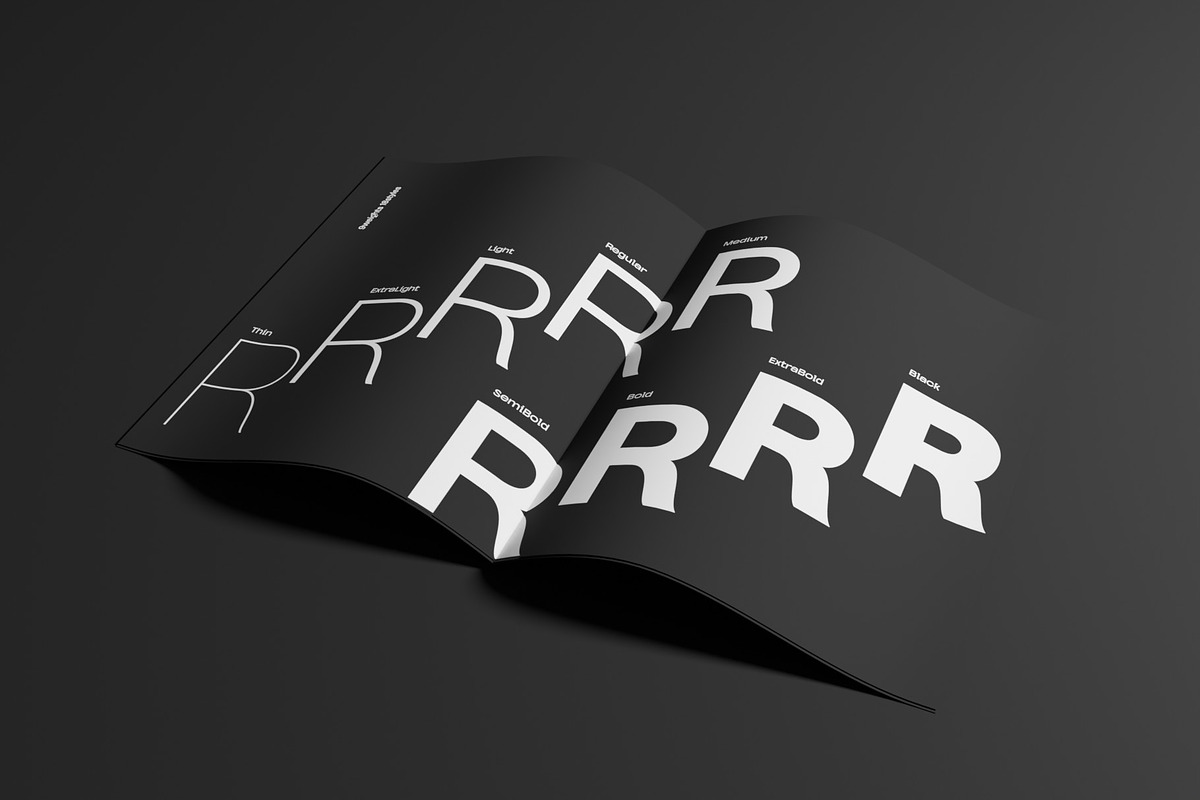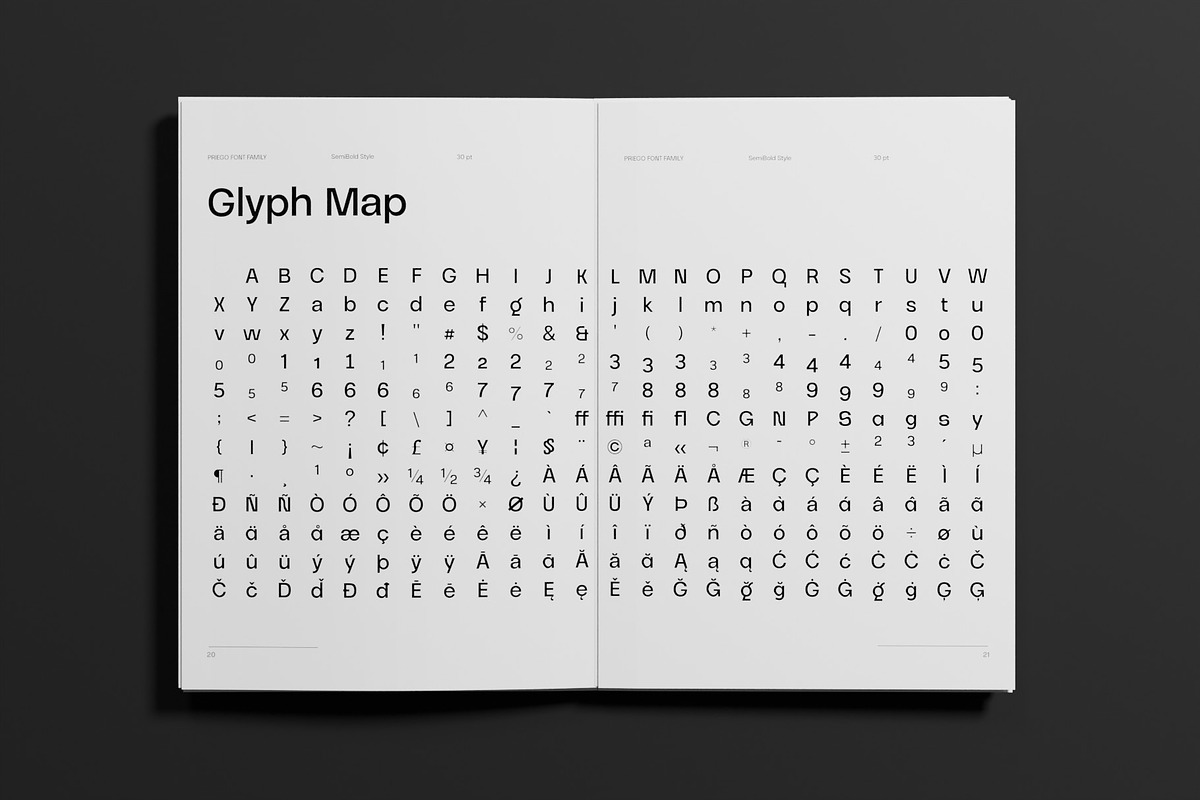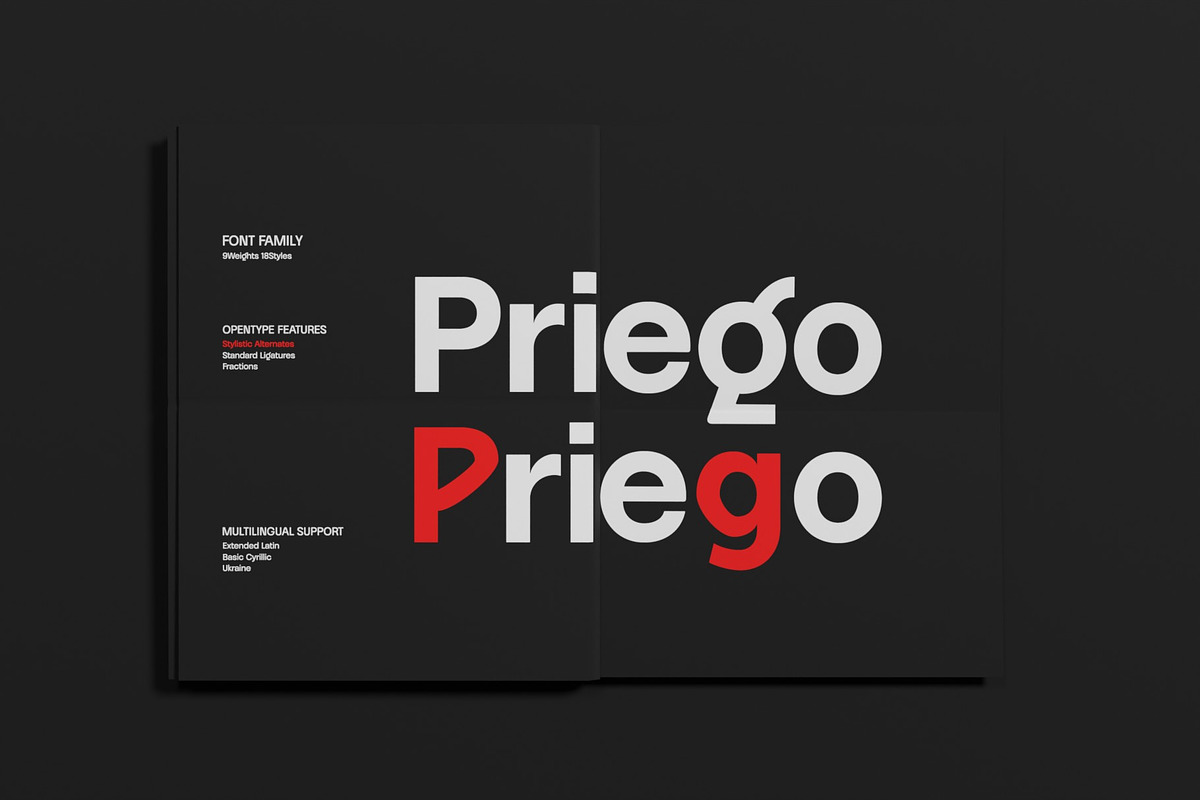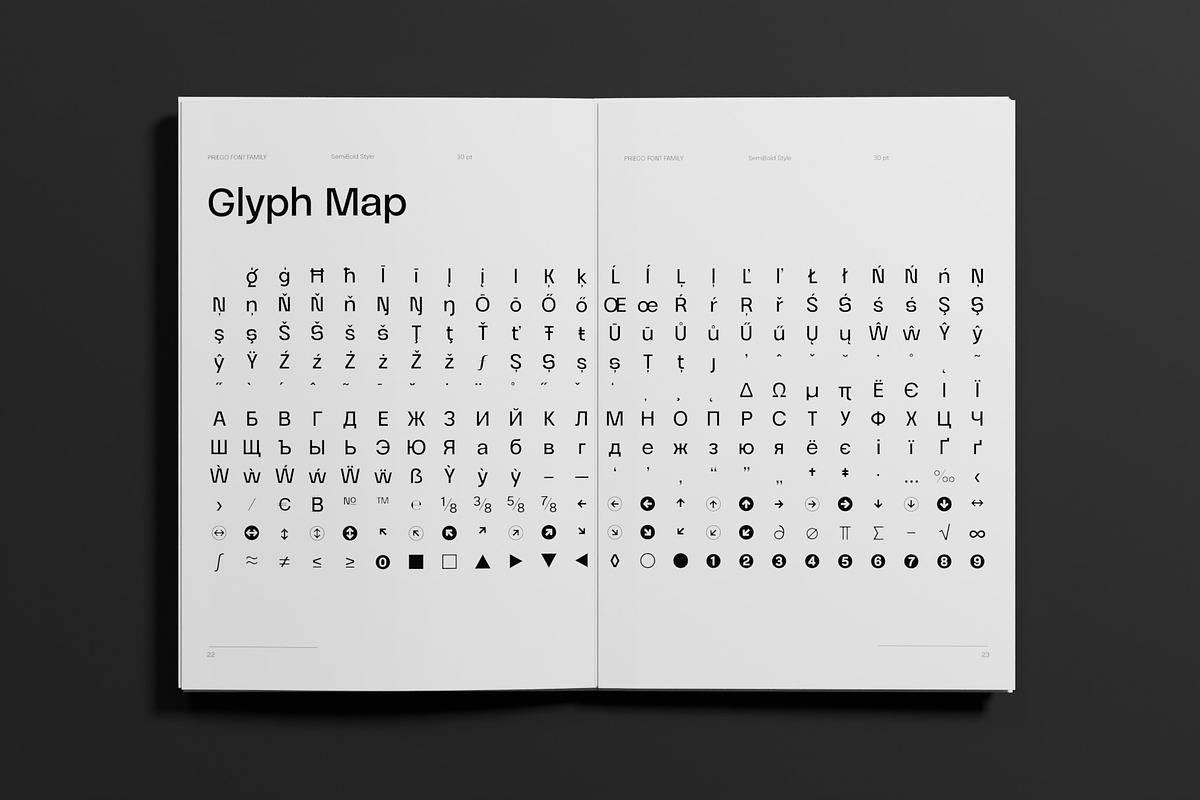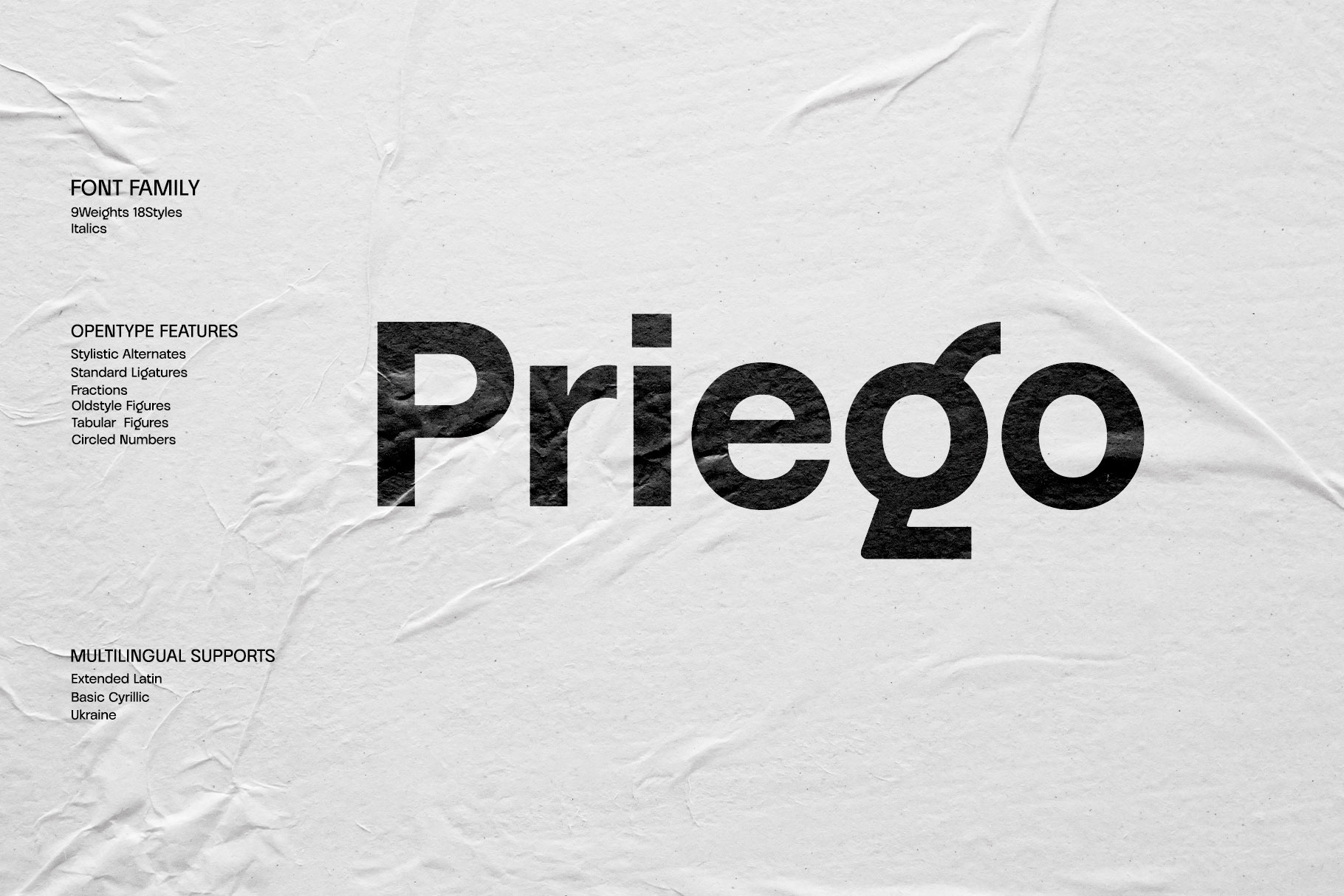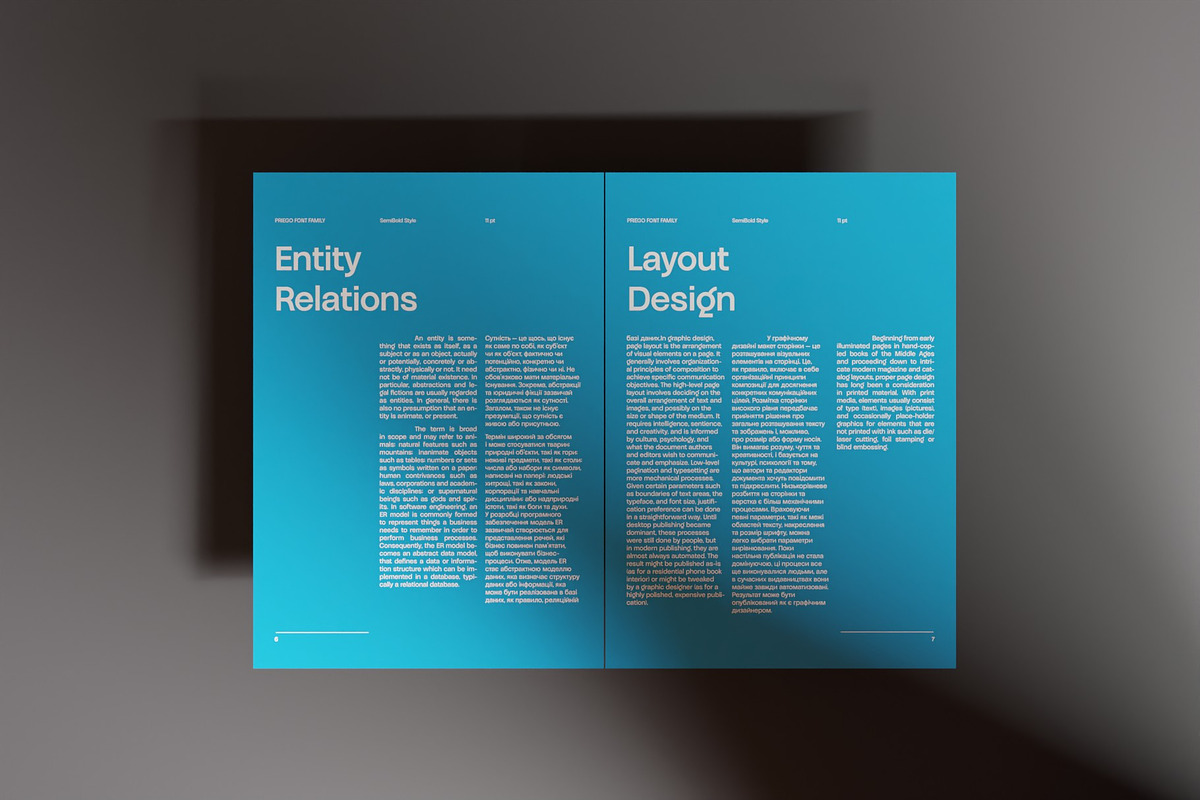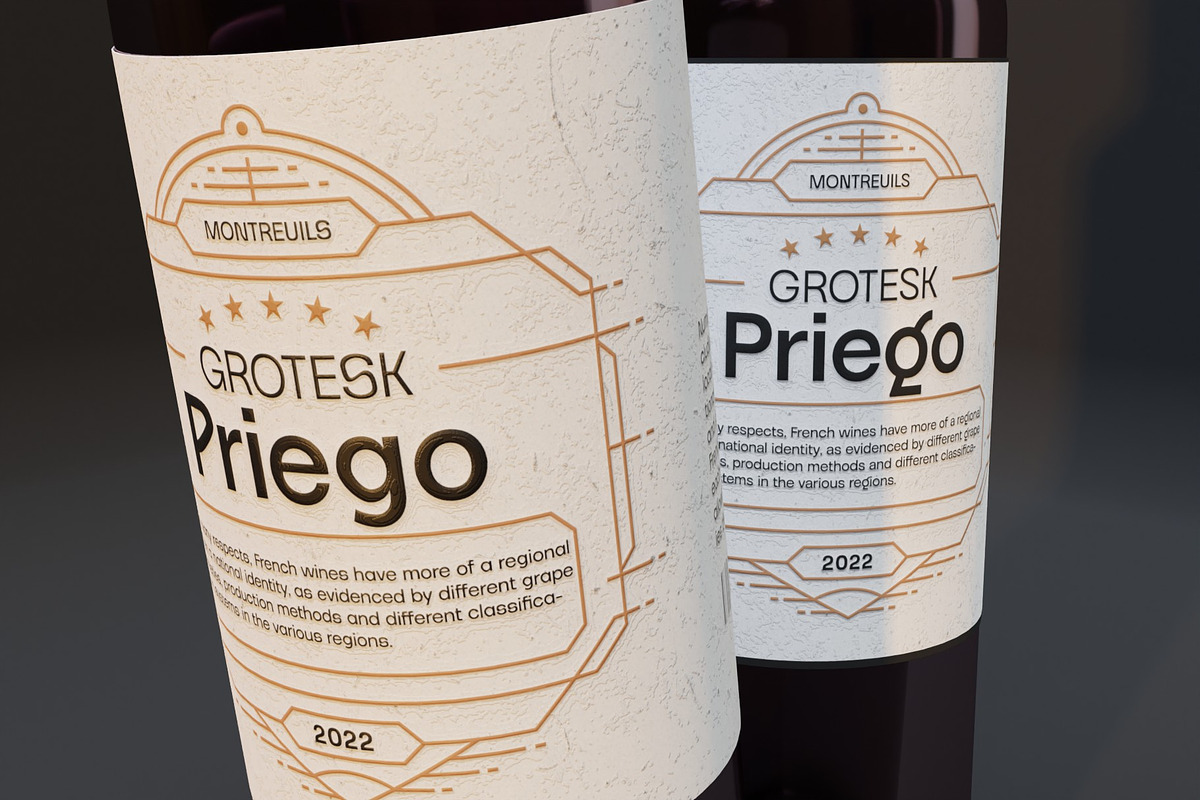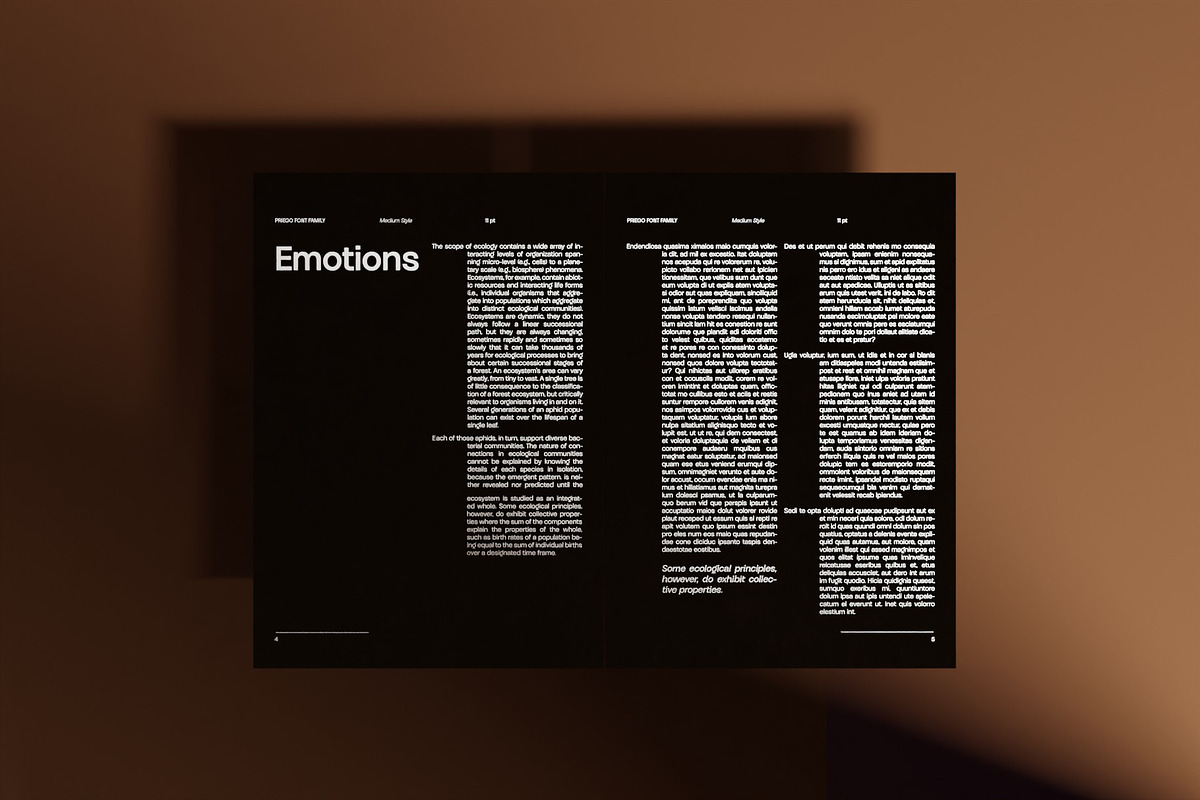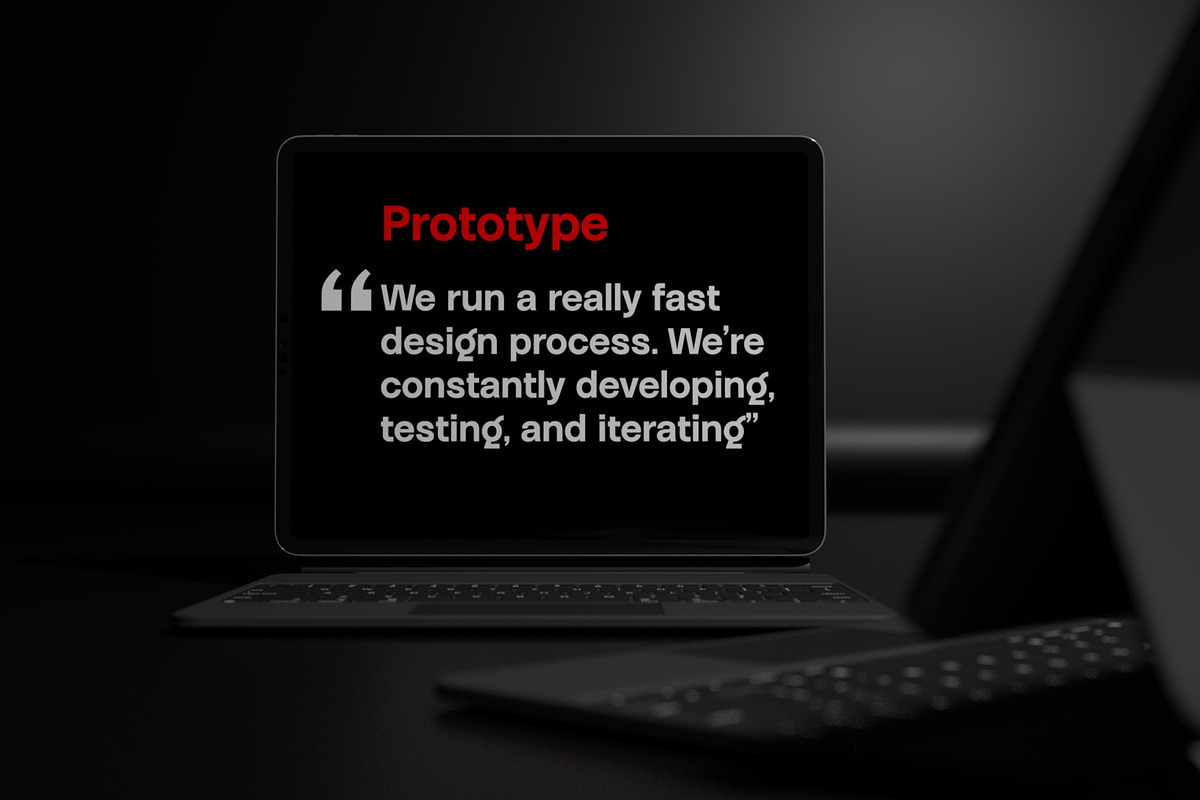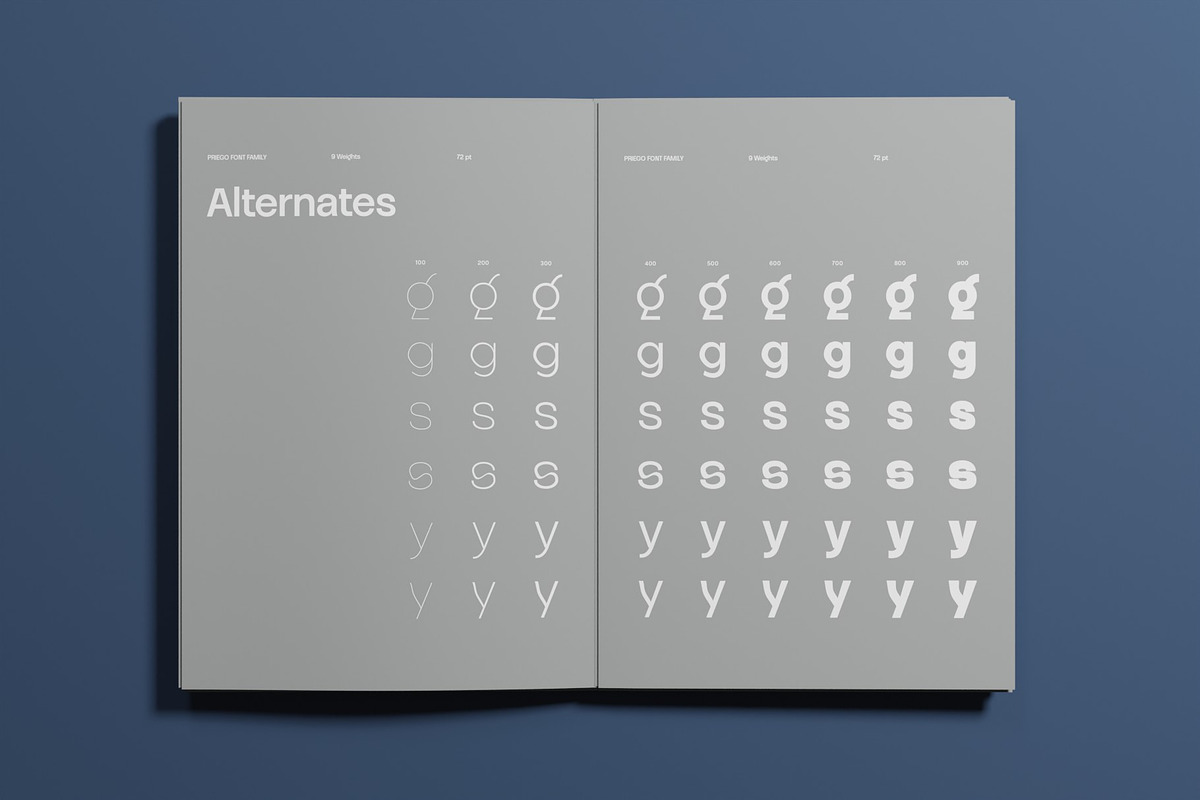
Priego Font Family
Here are timeless Sans created with a bit of playfulness and unstable grotesque.
However, clear visibility and balanced contrast, are the main features of all glyphs.
This modern Sans font family is designed to complement each other with balanced stem consistency and resisting Alternates.
If you want to meet a grotesque with a different feel, try using these Alternates.
Basic Systems
- 9Weights, 18Styles
- Italics
OpenType Features
- Stylistic Alternates - C, G, N, P, S, a, g, s, y (including Latin Extended)
- Standard Ligatures - ff, ffi, fi, fl
- Fractions
- Oldstyle Figures
- Tabular Figures
- Circled Numbers
- Western Europe, Central/Eastern Europe, Baltic, Turkish, Romanian
- Basic Cyrillic
- Ukraine